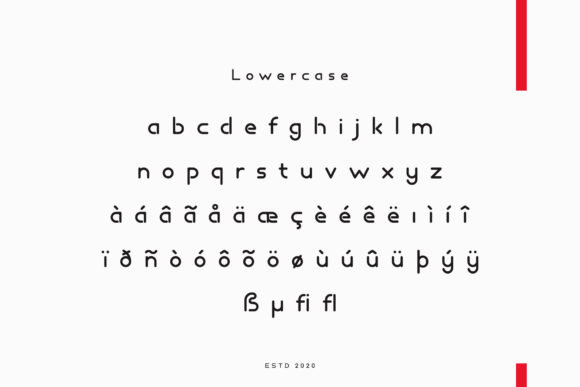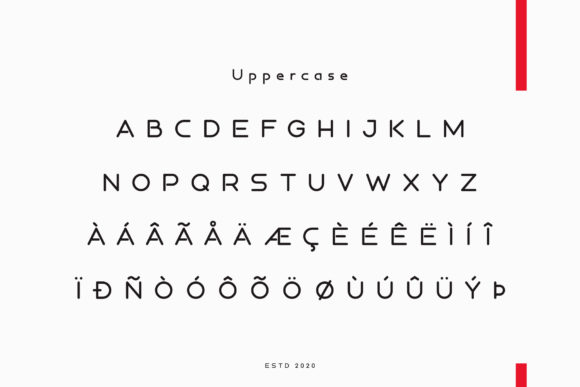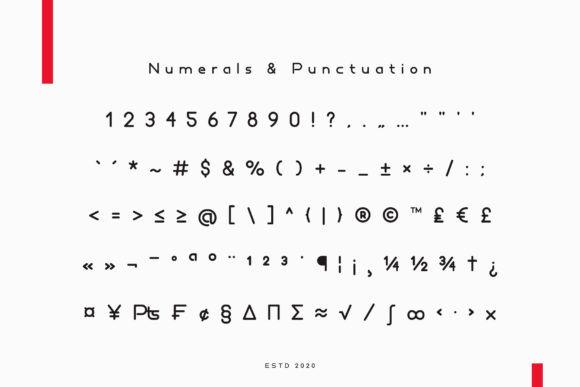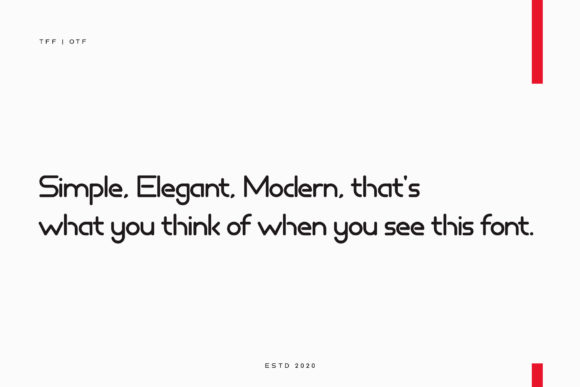
Akanta Font: The Ultimate Minimalist Sans Serif for Your Design Library
Are you tired of using overused and clichéd fonts in your designs? Look no further than Akanta Font, a minimalist and simple sans serif font that’s sure to elevate your creations. In this article, we’ll dive into the features and benefits of Akanta Font, and explore how it can become an incredibly valuable asset to your font library.
What is Akanta Font?
Akanta Font is a modern sans serif font that’s designed to be clean, simple, and highly versatile. Its minimalist aesthetic makes it perfect for a wide range of design applications, from digital projects to print materials. Whether you’re working on a logo, brochure, website, or social media graphic, Akanta Font is an excellent choice.
Key Features of Akanta Font
- Minimalist design: Akanta Font boasts a sleek and straightforward design that’s free from unnecessary embellishments.
- Simple and clean lines: The font’s lines are smooth and uncomplicated, making it easy to read and understand.
- Highly legible: Akanta Font is optimized for readability, ensuring that your text is clear and easy to comprehend.
- Versatile: This font is suitable for a wide range of design projects, from headings and titles to body text.
Benefits of Using Akanta Font
So, why should you choose Akanta Font for your design projects? Here are just a few benefits:
- Elevate your designs: Akanta Font’s modern and minimalist aesthetic can instantly elevate your designs and give them a professional look.
- Improve readability: The font’s high legibility ensures that your text is easy to read, making it perfect for body text and longer content.
- Increase versatility: Akanta Font’s simplicity and cleanliness make it suitable for a wide range of design applications.
- Stand out from the crowd: By using a less common font like Akanta, you can differentiate your designs from others and create a unique visual identity.
How to Use Akanta Font in Your Designs
Akanta Font is incredibly easy to use and can be applied to a variety of design projects. Here are a few ideas to get you started:
- Logos and branding: Use Akanta Font as a primary font for your logo or as a secondary font to add a touch of modernity.
- Print materials: Akanta Font is perfect for brochures, flyers, posters, and other print materials where readability is key.
- Digital projects: Use Akanta Font in your website designs, social media graphics, and digital ads to create a cohesive and modern look.
Tips for Pairing Akanta Font with Other Fonts
While Akanta Font is stunning on its own, you can also pair it with other fonts to create a unique and visually appealing combination. Here are some tips:
- Pair with a serif font: Combining Akanta Font with a serif font can create a beautiful contrast and add depth to your design.
- Use a bold font for headings: Pair Akanta Font with a bold font for headings to create a clear visual hierarchy.
- Experiment with script fonts: Akanta Font can also be paired with script fonts to add a touch of elegance and sophistication.
In conclusion, Akanta Font is an exceptional minimalist sans serif font that’s perfect for designers and crafters looking to elevate their creations. Its simplicity, cleanliness, and high legibility make it an incredibly valuable asset to your font library. Whether you’re working on a digital project or print material, Akanta Font is sure to become a go-to choice. So, what are you waiting for? Download Akanta Font today and take your designs to the next level!